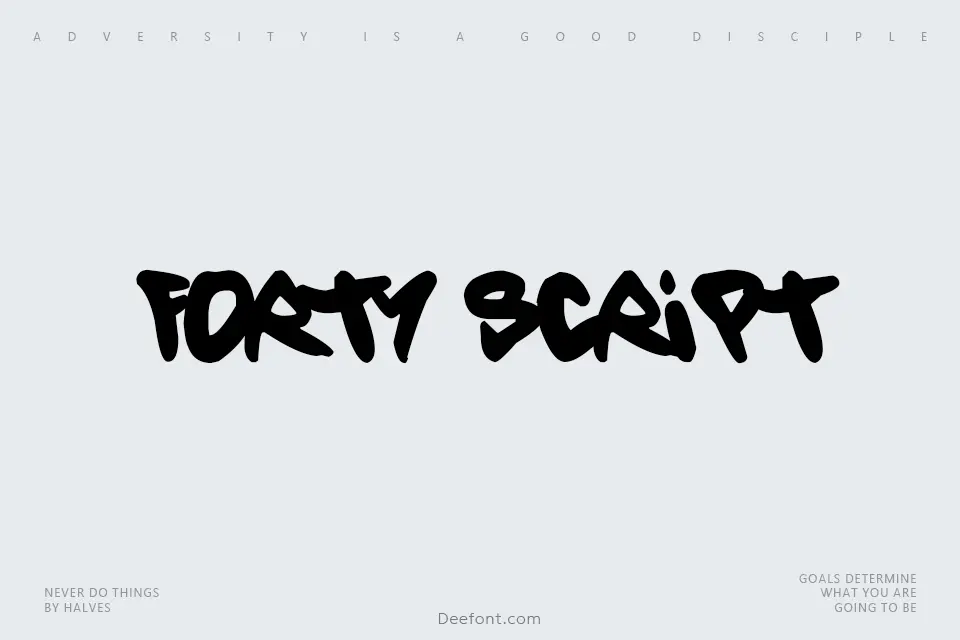
Forty Script Font
Forty Script is a bold, graffiti-inspired script font featuring thick, flowing strokes and an energetic style. Designed by John Rose, this display typeface captures the dynamic essence of street art with its interconnected characters and raw, hand-lettered appearance. Perfect for urban-themed projects, logos, and creative branding that demands attention and artistic flair.